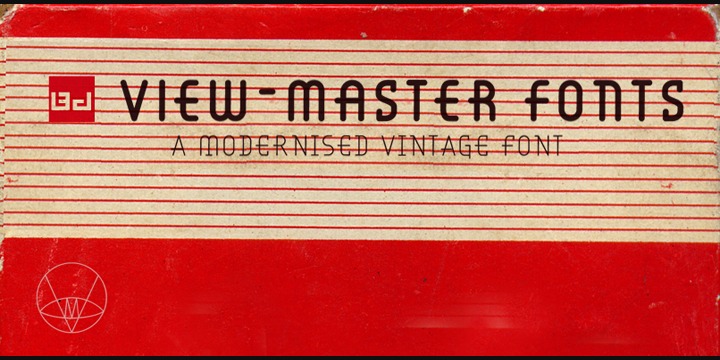
BD Viewmaster is inspired by the font used on the legendary View-Master products. It’s an uppercase font with variations and three different styles: light, regular and neon.